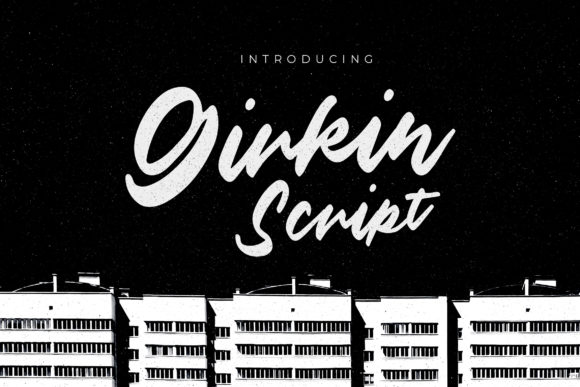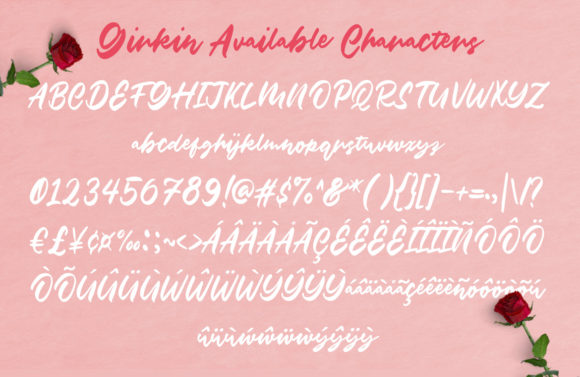
Girkin Font
About Girkin Font
Girkin is a flowing and modern paint brushed script font. Incredibly distinct and interesting, this font will make each of your designs come alive. Add it confidently to your projects, and you will love the results.